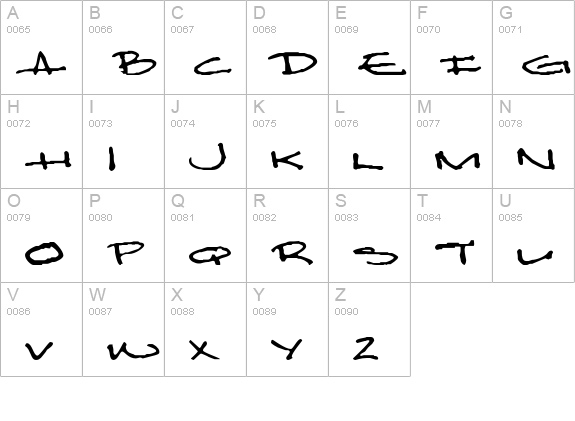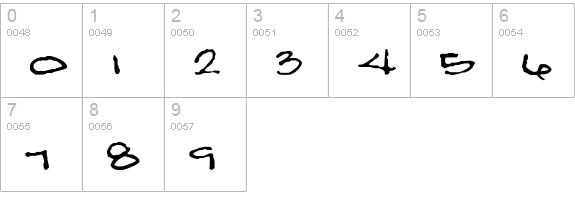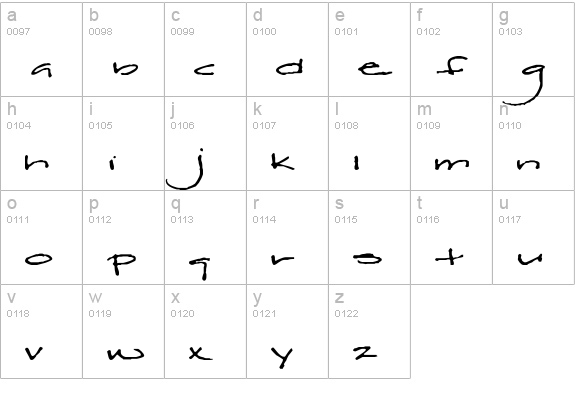
Sassy Reg Plain Font Details
Introducing Sassy Reg Plain font, a stylish and contemporary typeface that exudes confidence and attitude. This font is perfect for anyone looking to add a touch of sass to their designs. With its clean lines and bold curves, Sassy Reg Plain font demands attention and makes a statement. Whether you're creating eye-catching logos, attention-grabbing headlines, or trendy social media graphics, this font will elevate your designs to the next level. Its versatility allows it to be used in a variety of projects, from fashion and beauty to lifestyle and branding. What's even better is that Sassy Reg Plain font is free! Yes, you read that right. This amazing font is freely available to download at FontsMarket.com. Now you can get your hands on this stylish font without breaking the bank. So why wait? Download Sassy Reg Plain font today and let your designs speak for themselves. Make a bold statement with this eye-catching typeface and watch as your creations come to life. Don't miss out on the opportunity to add a touch of sass to your designs. Get Sassy Reg Plain font now, available for free at FontsMarket.com.